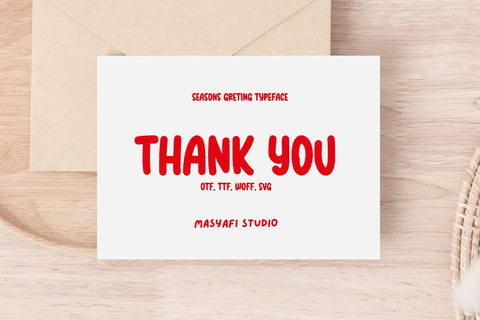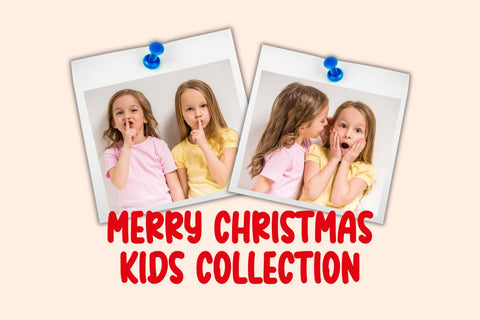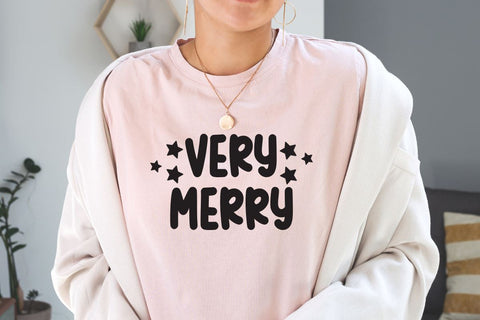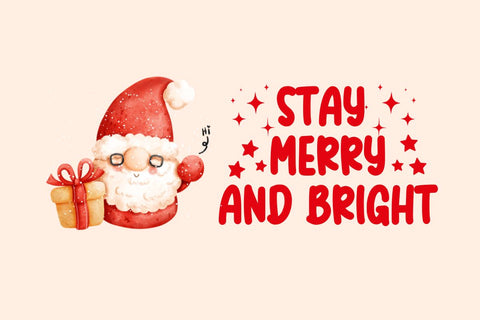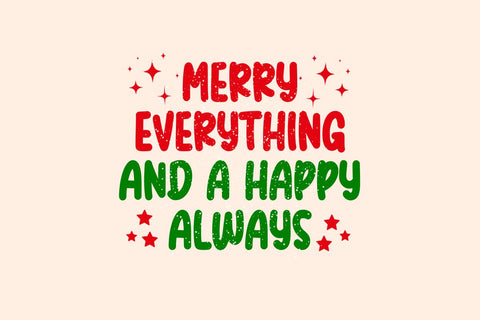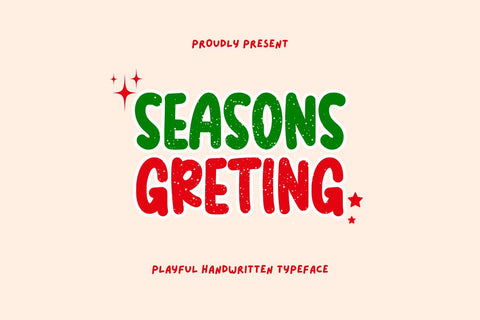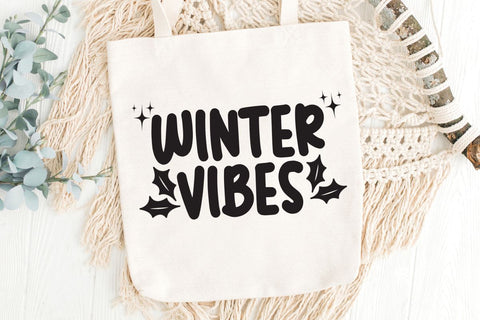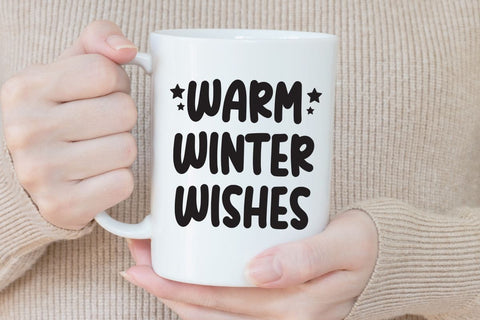
Seasons Greting - A playful Handwritten Font
Hi, Introducing Seasons Greting - A playful Handwritten Font
A Playful Handwritten Font with a cute and fun style. This font is cool for mugs, t-shirts, greeting cards, quotes, etc